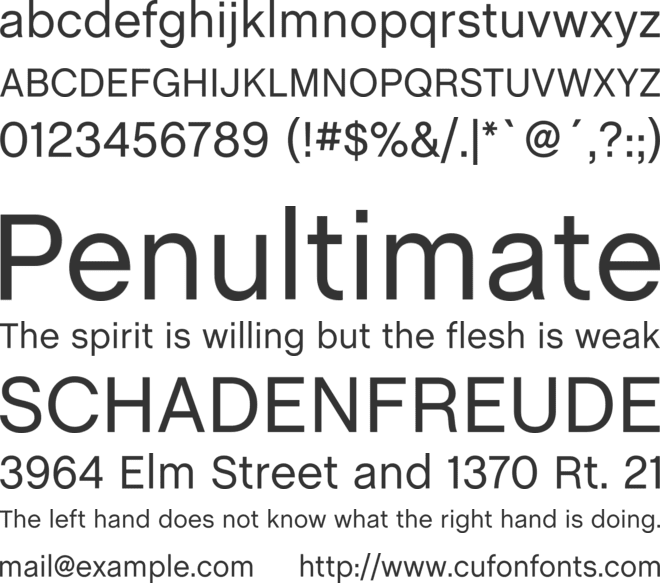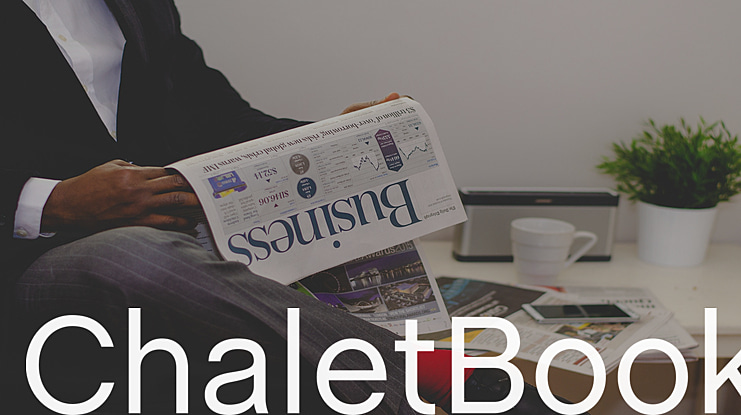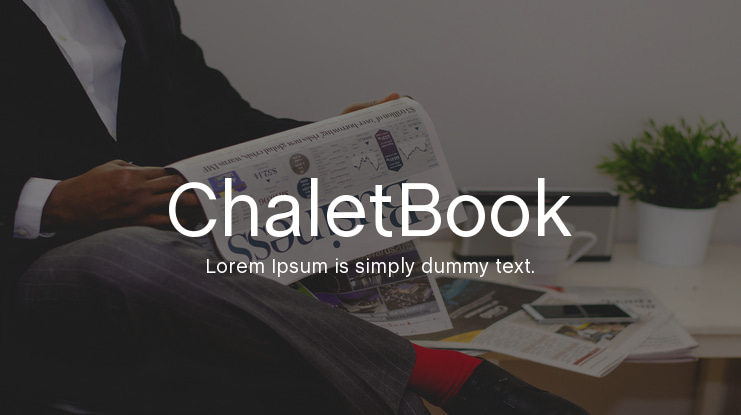
We developed this special version of Chalet for the House book project. We optimized the characters for better readability at small sizes and made the entire typeface more compact. We also added small caps, small cap figures, fractions and some useful OpenType features.